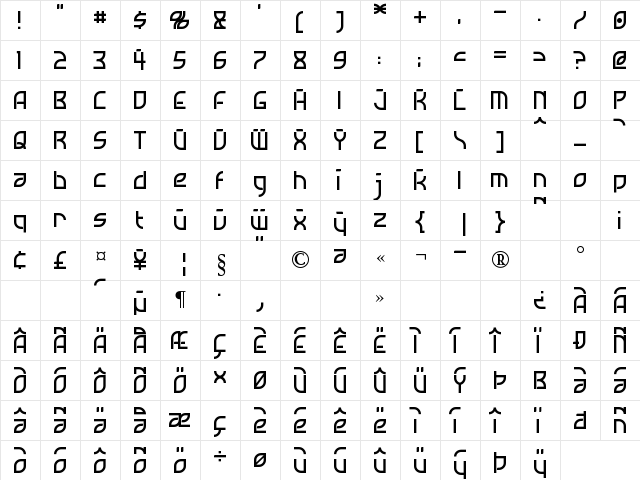
Neostar Regular
| Designer | Neale Davidson |
Design Context for Neostar Typeface
Neostar takes a measured approach to typography — its balanced proportions and neutral character make it a reliable workhorse for both digital and print work.